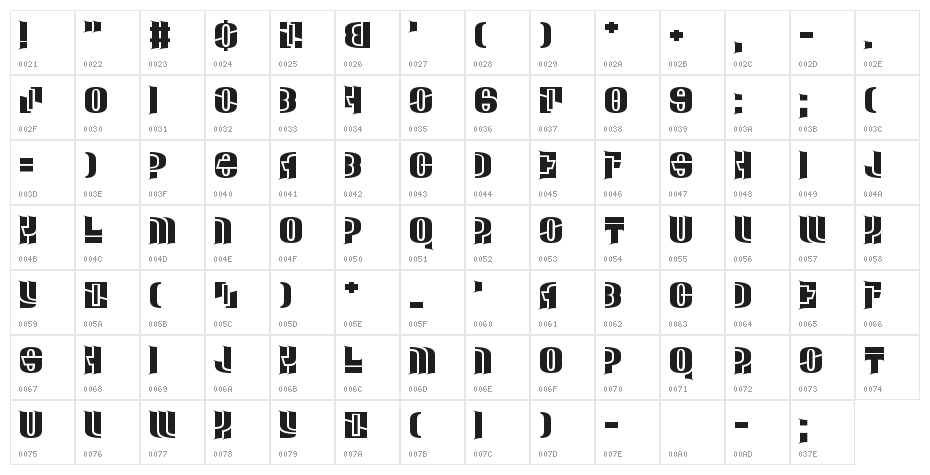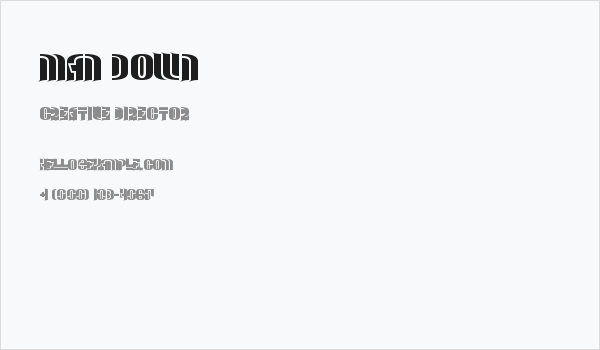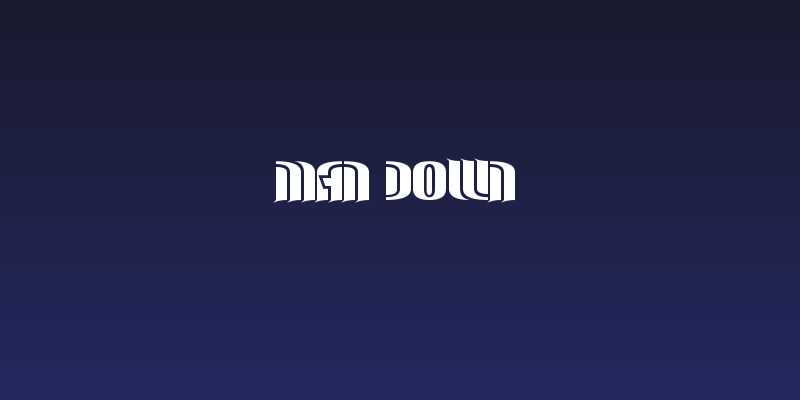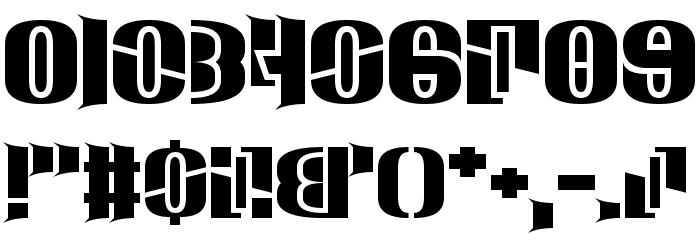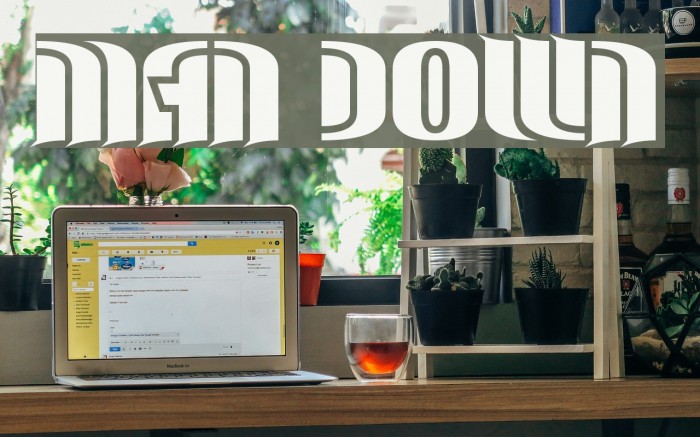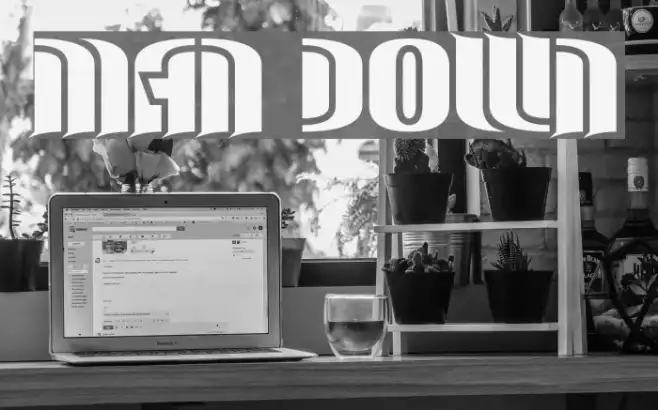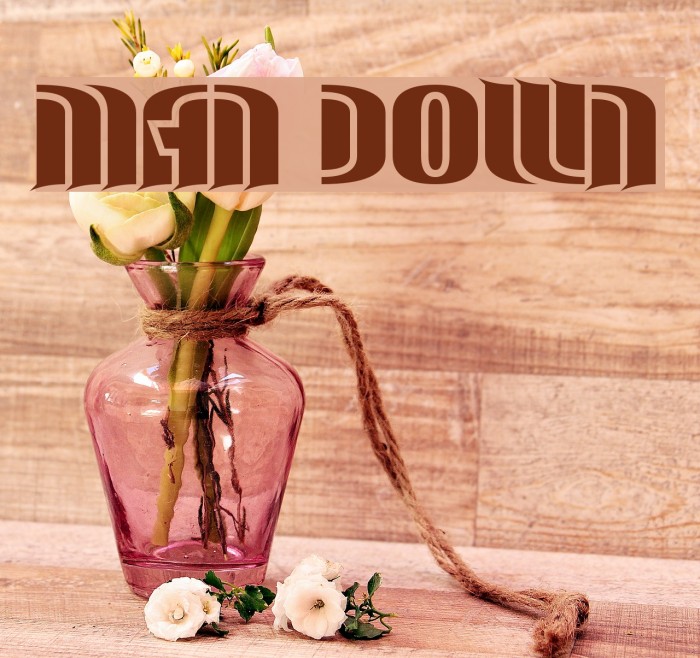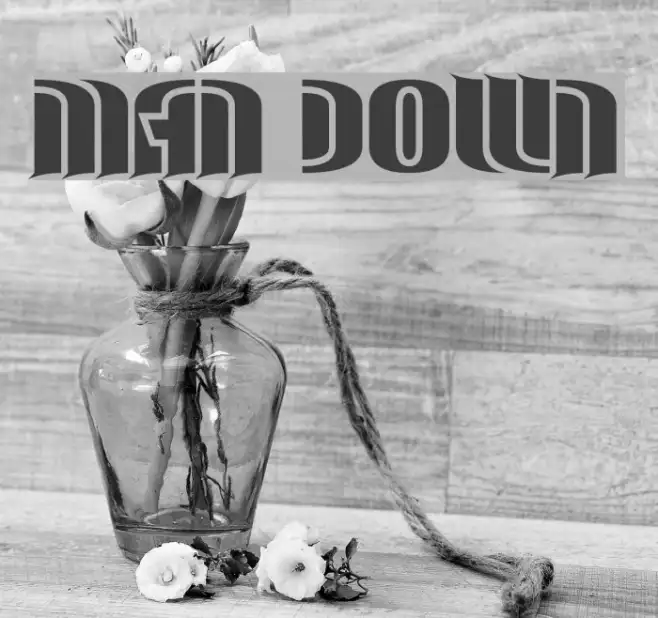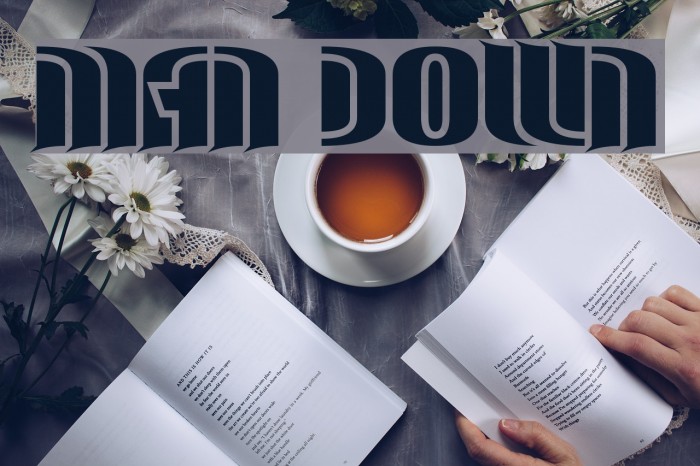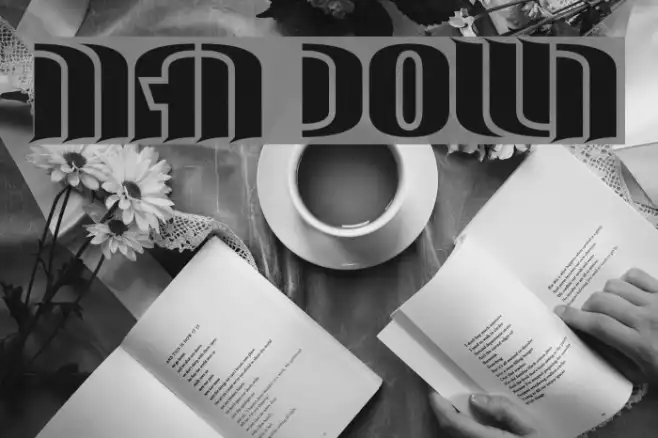
Man Down Font
Man Down Description
This font features a bold and dramatic style with a strong presence. The characters are heavily stylized, incorporating sharp angles and thick strokes that create a sense of power and authority. The design includes unique cutouts and geometric shapes within each letter, adding a modern and edgy feel. The uppercase and lowercase letters maintain a consistent weight, while the numbers and special characters follow the same bold aesthetic. This font is ideal for making a statement and capturing attention with its striking appearance.
| Proposed Projects | Perfect for posters, album covers, branding, and any project requiring a strong visual impact. |